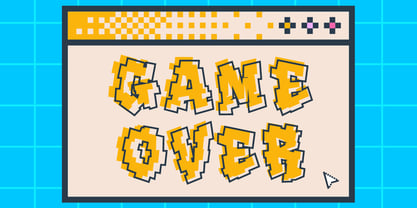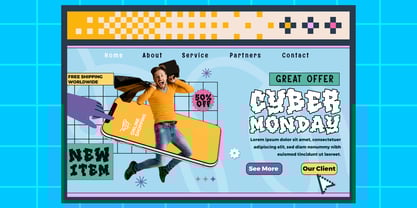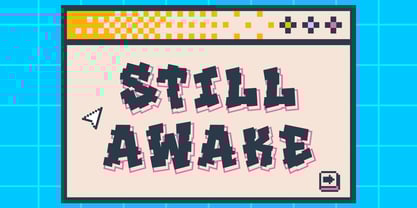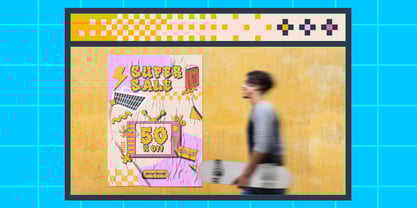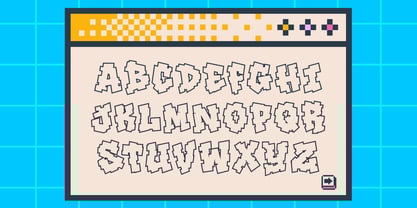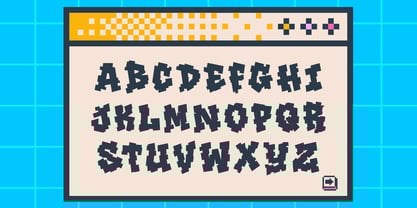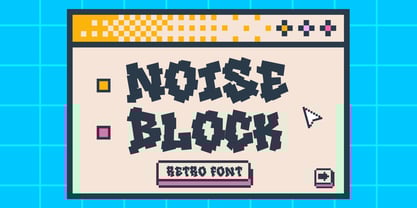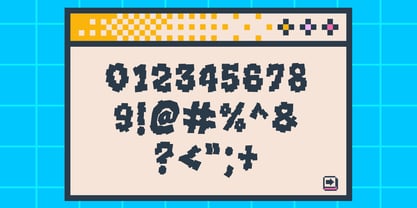
Noise Block
by Sipanji21
The Noise Block Font Family was designed by Sipanji and published by Sipanji21. Noise Block contains 2 styles and family package options. More about this family
Noise Block is a retro pixel graffiti display font that captures the energy of early digital design and the rebellion of urban street art. Combining the structured look of pixel grids with the freeform spirit of graffiti, it delivers a unique, nostalgic, and powerful typographic experience. Each letter in Noise Block feels handcrafted, built from blocky pixel segments that echo vintage computer graphics and 90s arcade vibes. The jagged geometry, irregular rhythm, and pixel texture make the font playful yet impactful — perfect for projects that thrive on creativity, boldness, and contrast. Noise Block draws inspiration from old-school video games, bitmap art, and the DIY culture of street expression. It bridges two eras — digital nostalgia and graffiti culture — resulting in a font that’s loud, expressive, and unmistakably original. This typeface includes Uppercase Letters, Numbers, and Punctuation, along with Multilingual Support for designers around the world. Its strong block structure and pixel aesthetics make it perfect for titles, posters, branding, and digital layouts that need a retro-futuristic edge. Design Applications: Gaming and esports branding Retro tech and digital artwork Music posters, stickers, and album covers Streetwear and urban lifestyle design Pixel art projects and social media visuals Why Choose Noise Block: Noise Block is for designers who love imperfection — the kind that feels alive. It celebrates the visual chaos of early computer graphics while mixing in the freedom and flow of graffiti art. The font’s bold structure makes it readable and powerful, even at large scales, while its jagged edges keep it raw and full of character. It’s not clean, it’s not corporate — it’s creative and authentic. Each word typed in Noise Block feels like a digital shout, full of nostalgic rhythm and glitchy confidence. From tech branding to apparel design, this font gives your work a visual personality that’s impossible to ignore. Noise Block is where retro culture meets modern rebellion — a versatile display font that stands at the intersection of vintage and street art. Perfect for artists, brands, and creators who think outside the grid.